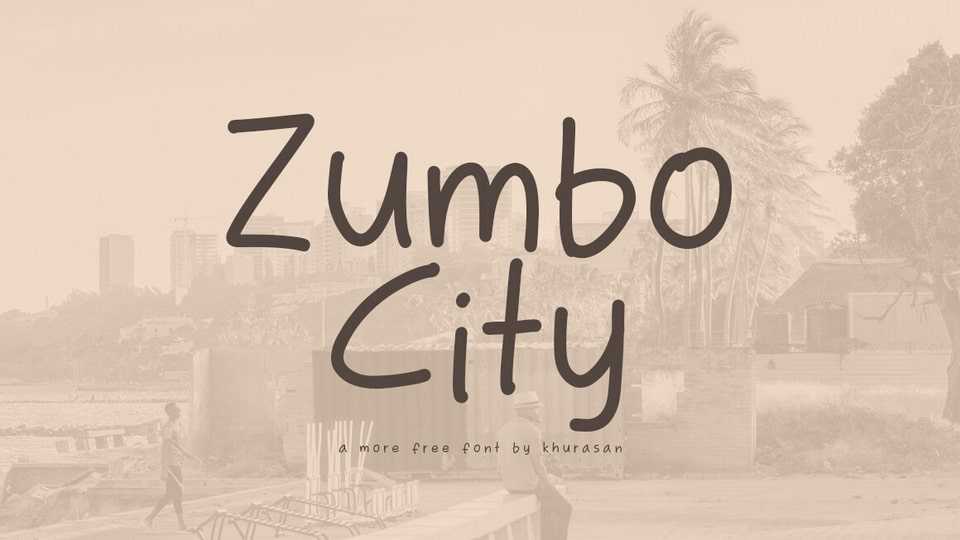
Download Zumbo City font, a hand-drawn comic typeface that’s bursting with character and whimsicality. Zumbo City font is your choice when you want to infuse your designs with a touch of cartoon magic.